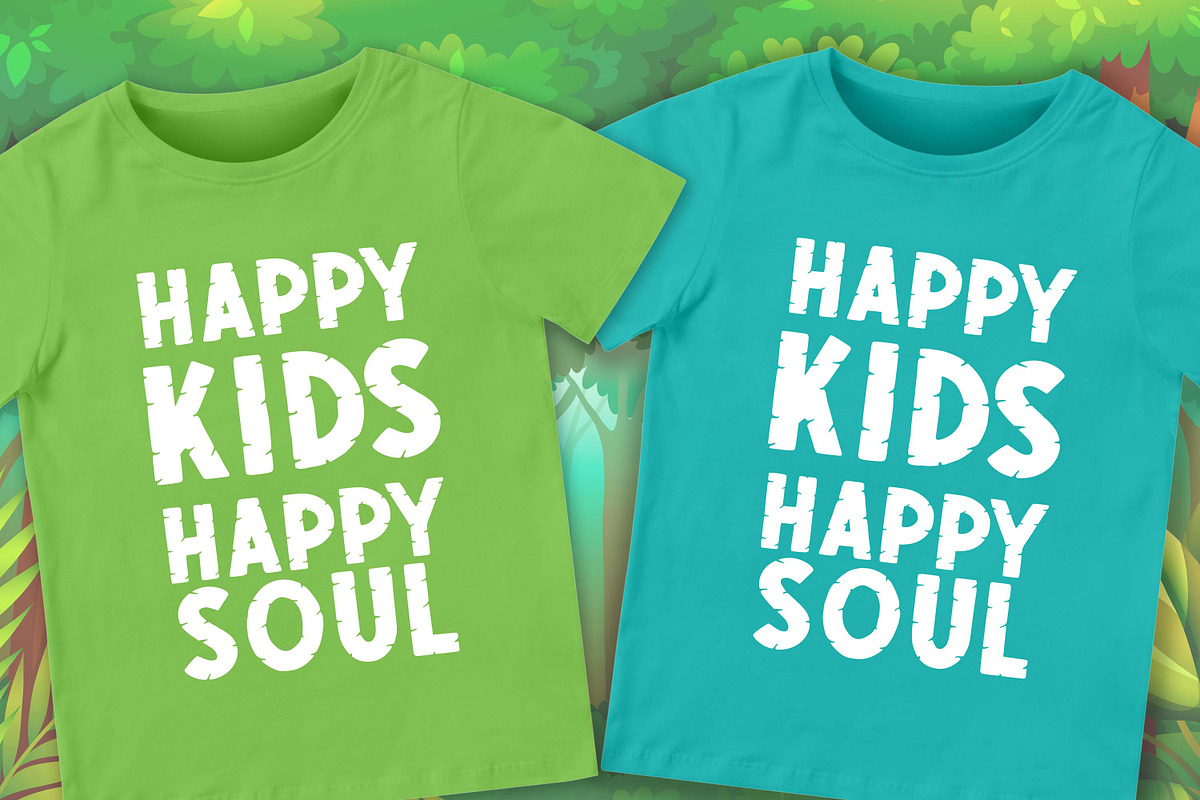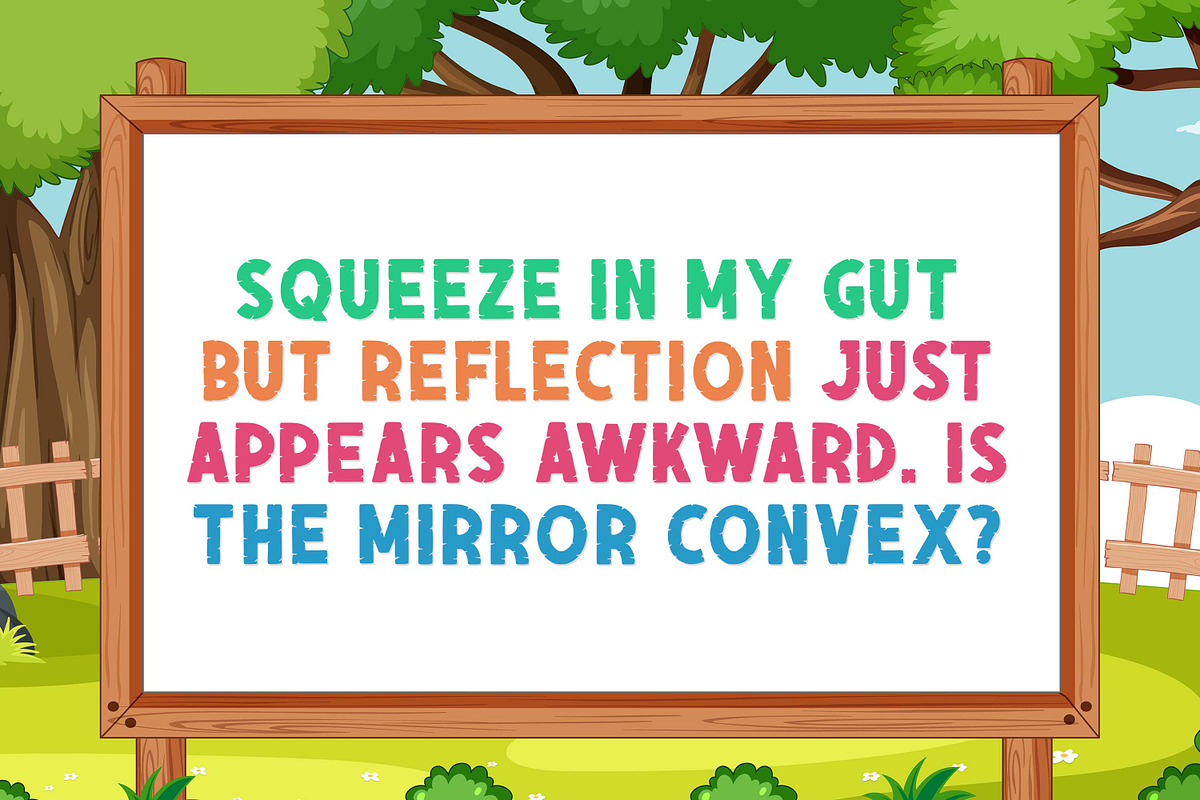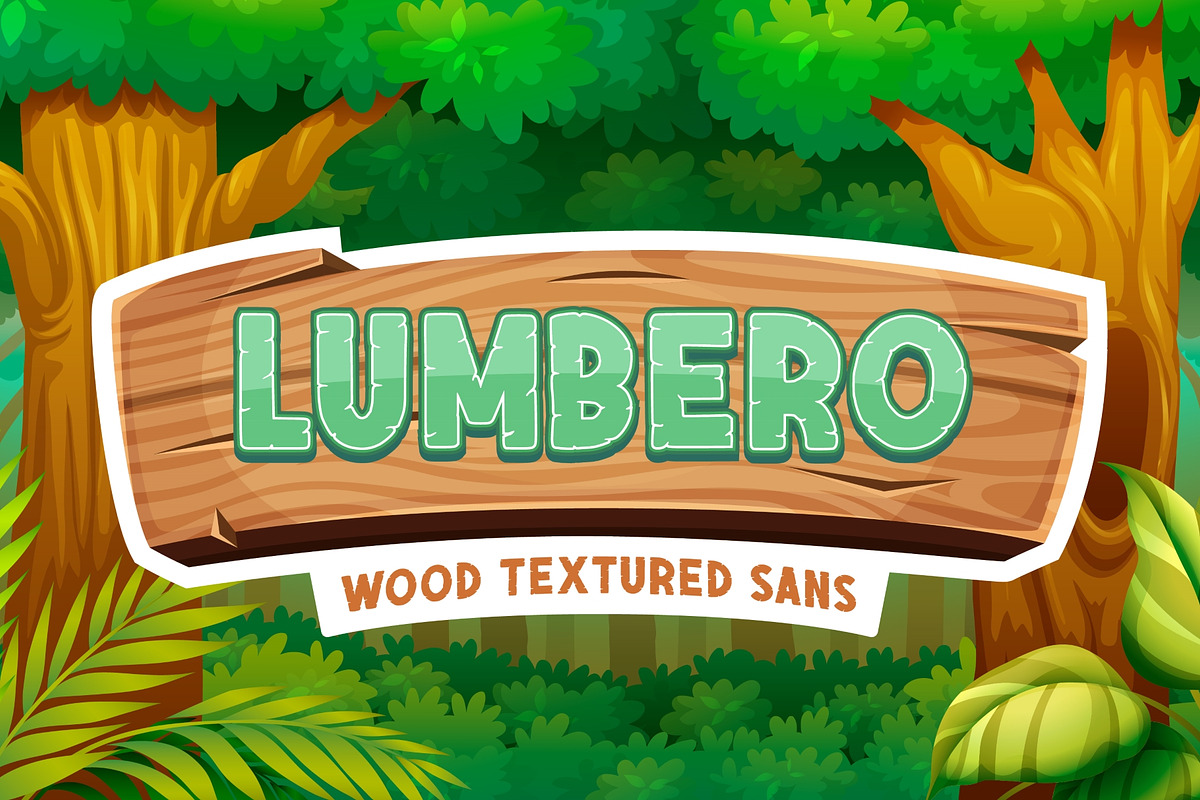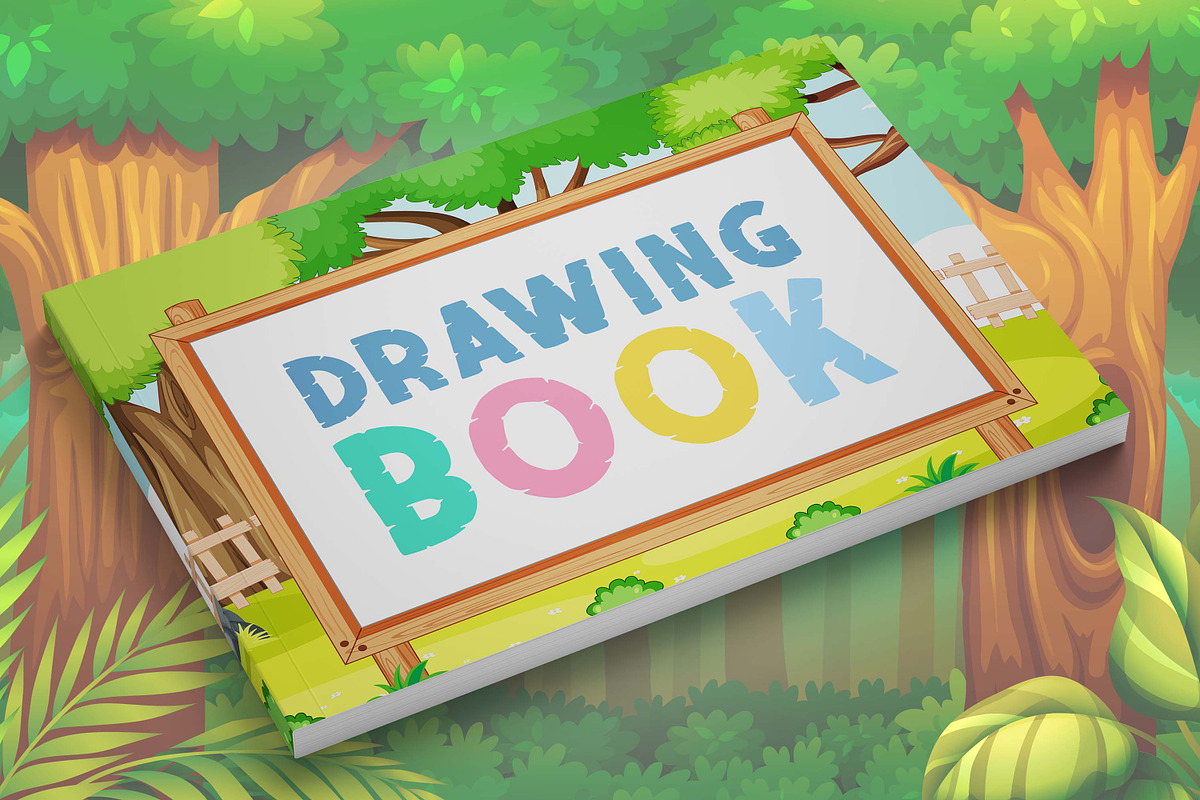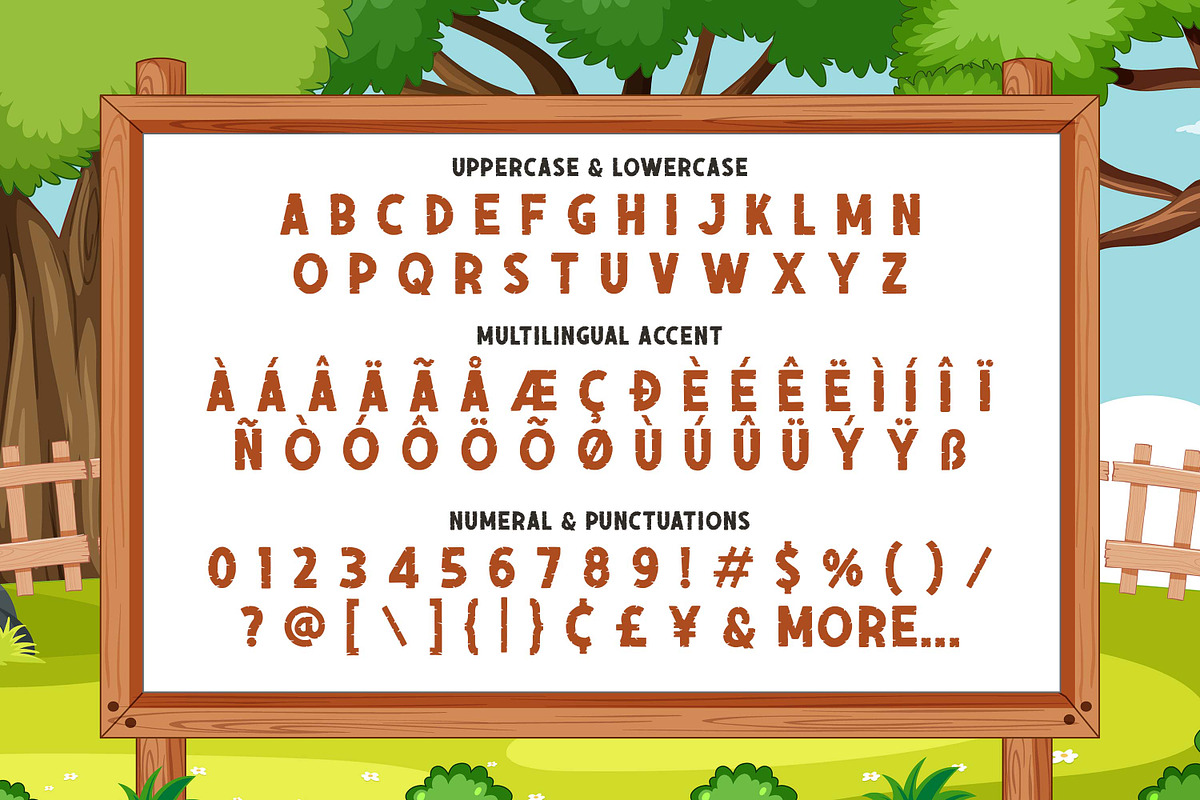
Lumbero - Wood Textured Sans
Lumbero is a Stylish & Playful Sans full of charm . It will take any DIY-project to the next level!
Lumbero is perfect for Craft , product packaging, product designs, label, branding projects, logo, wedding designs, social media posts, advertisements, watermark, invitation, stationery and any projects